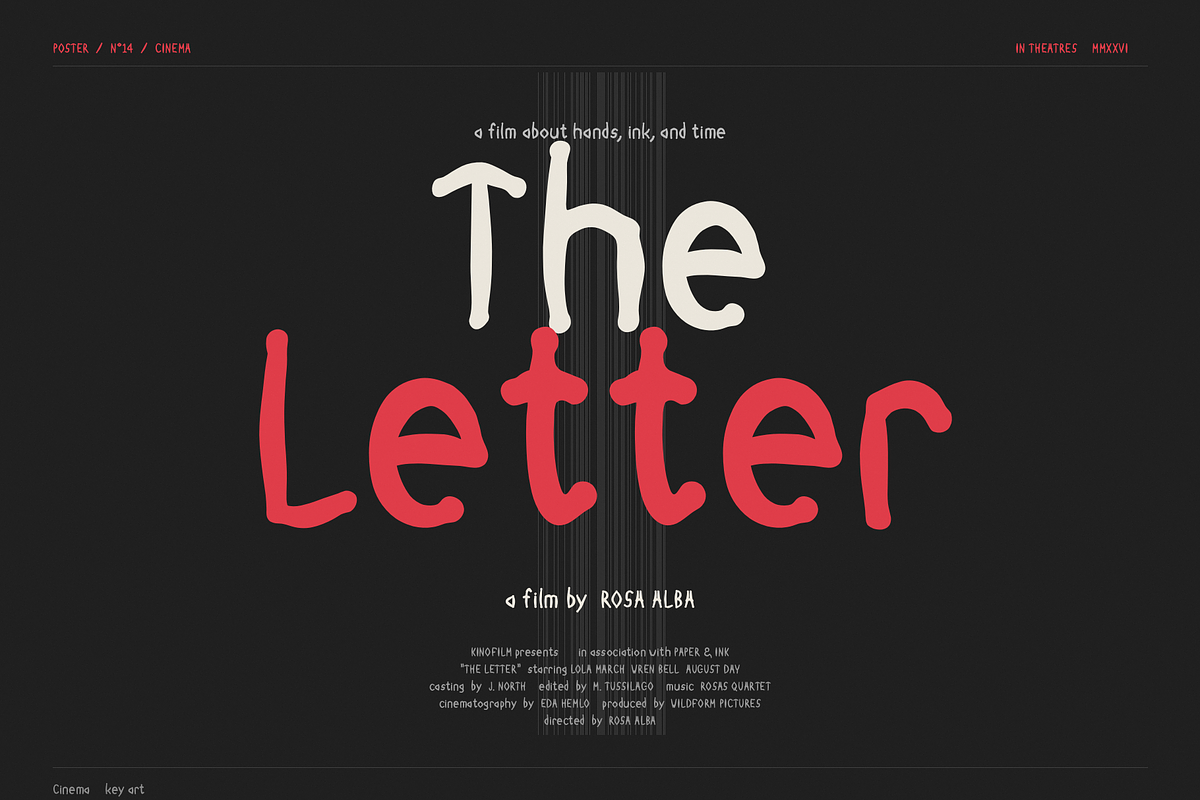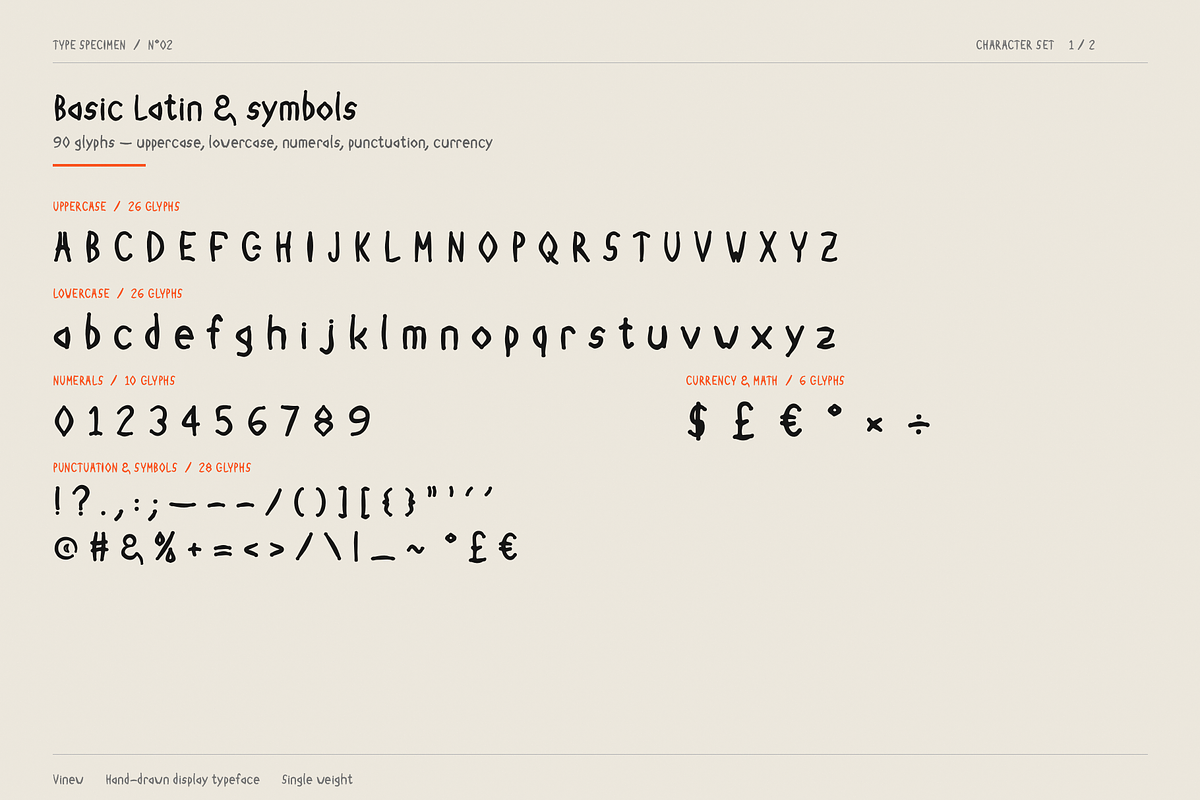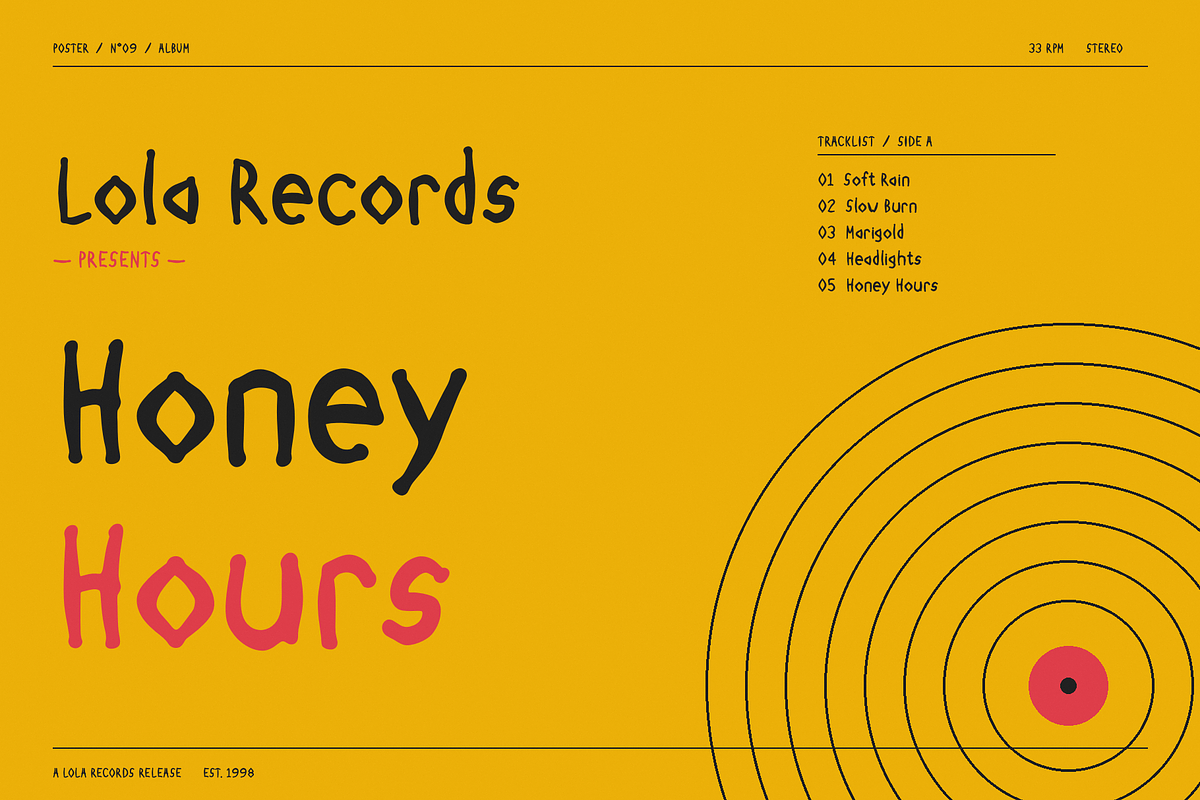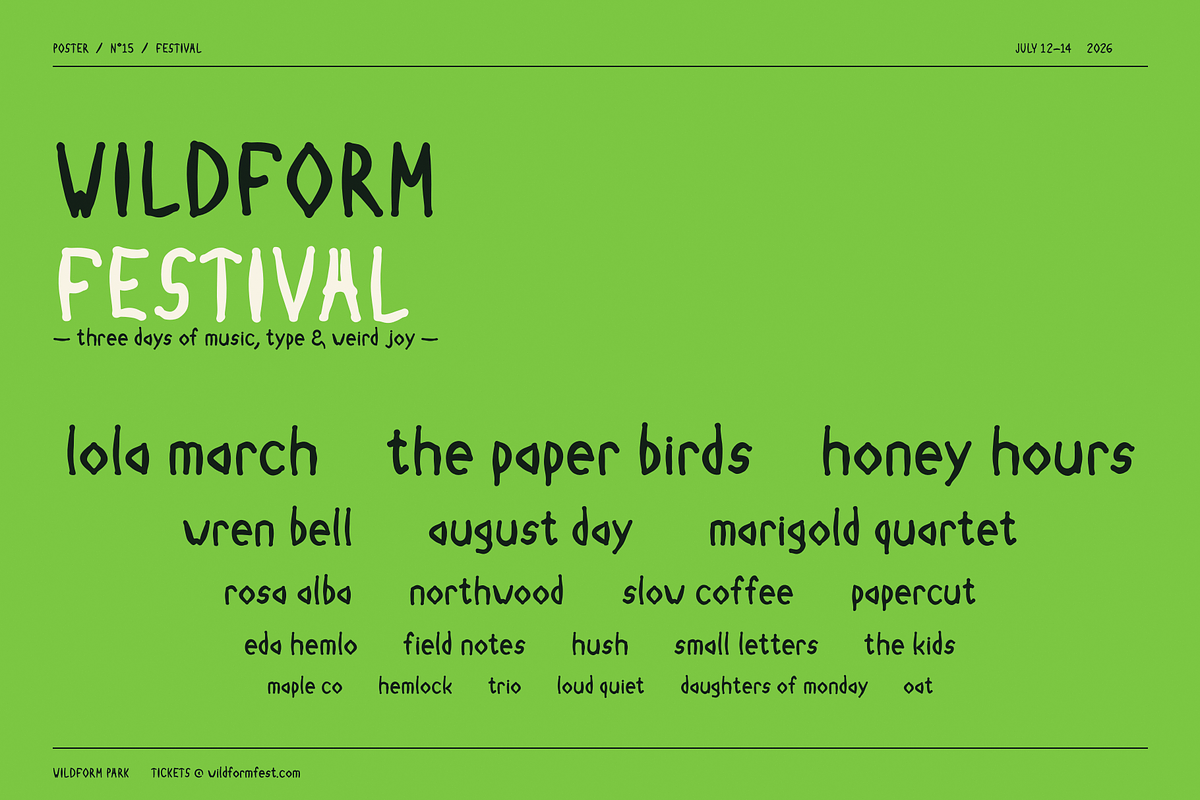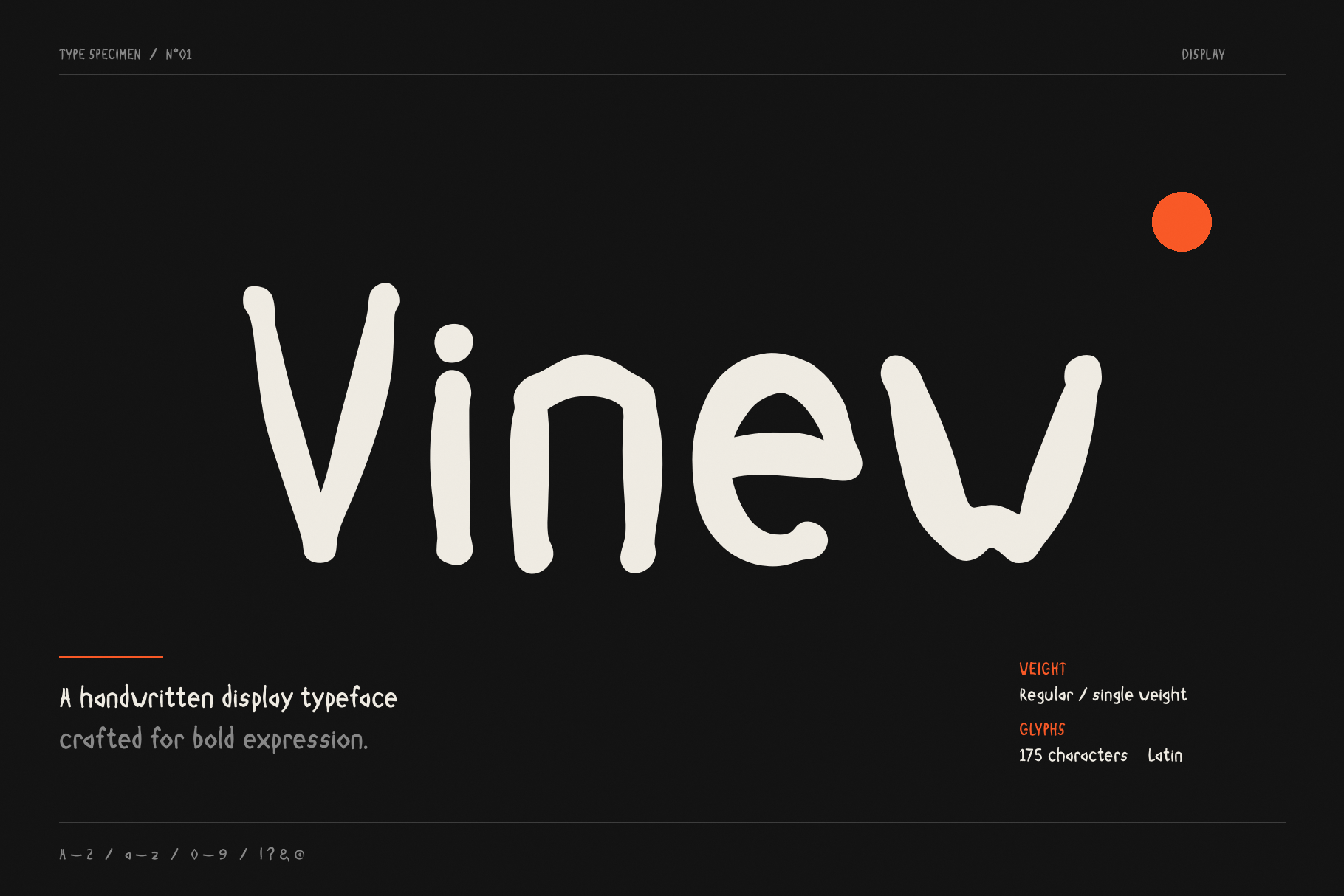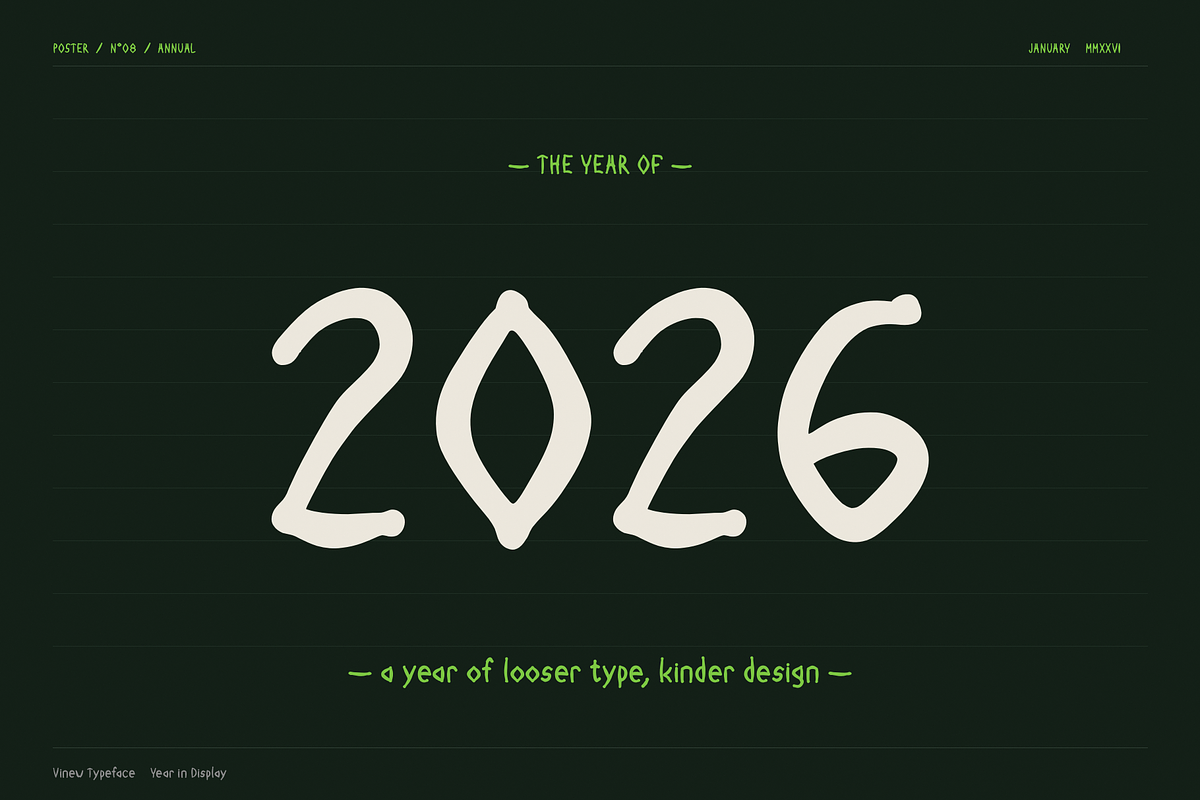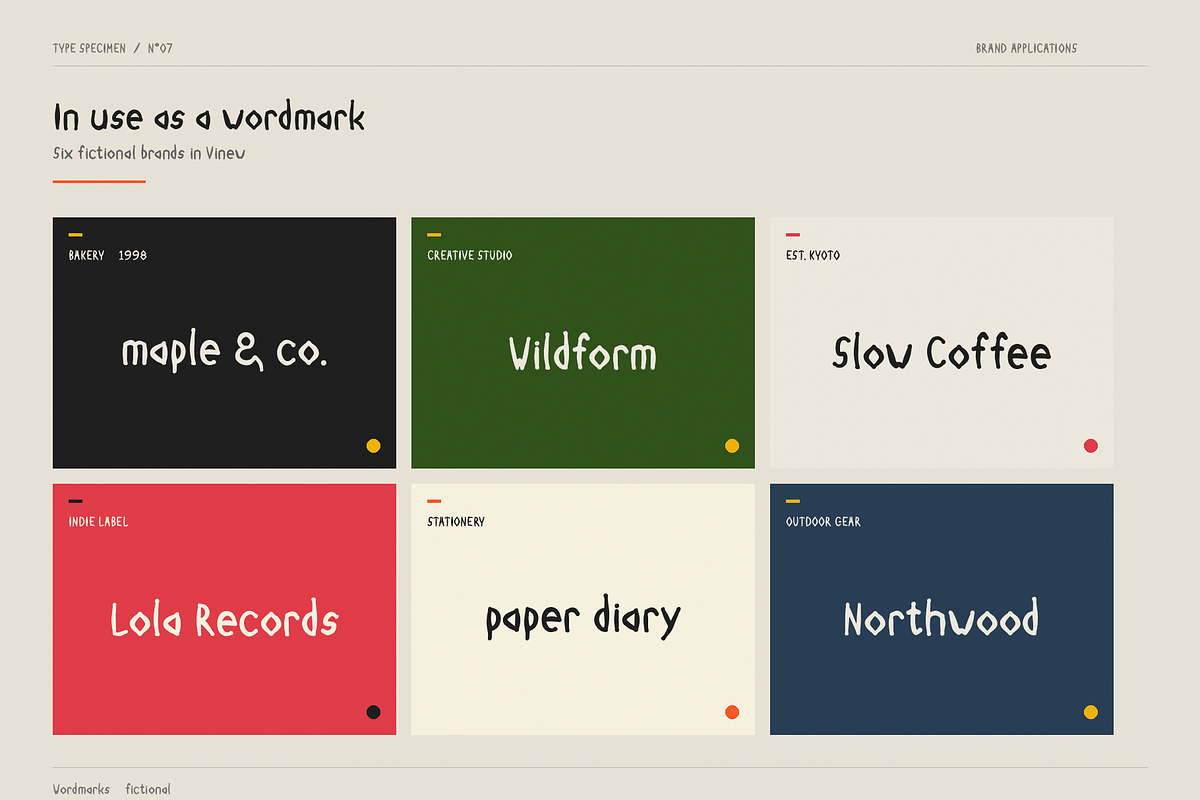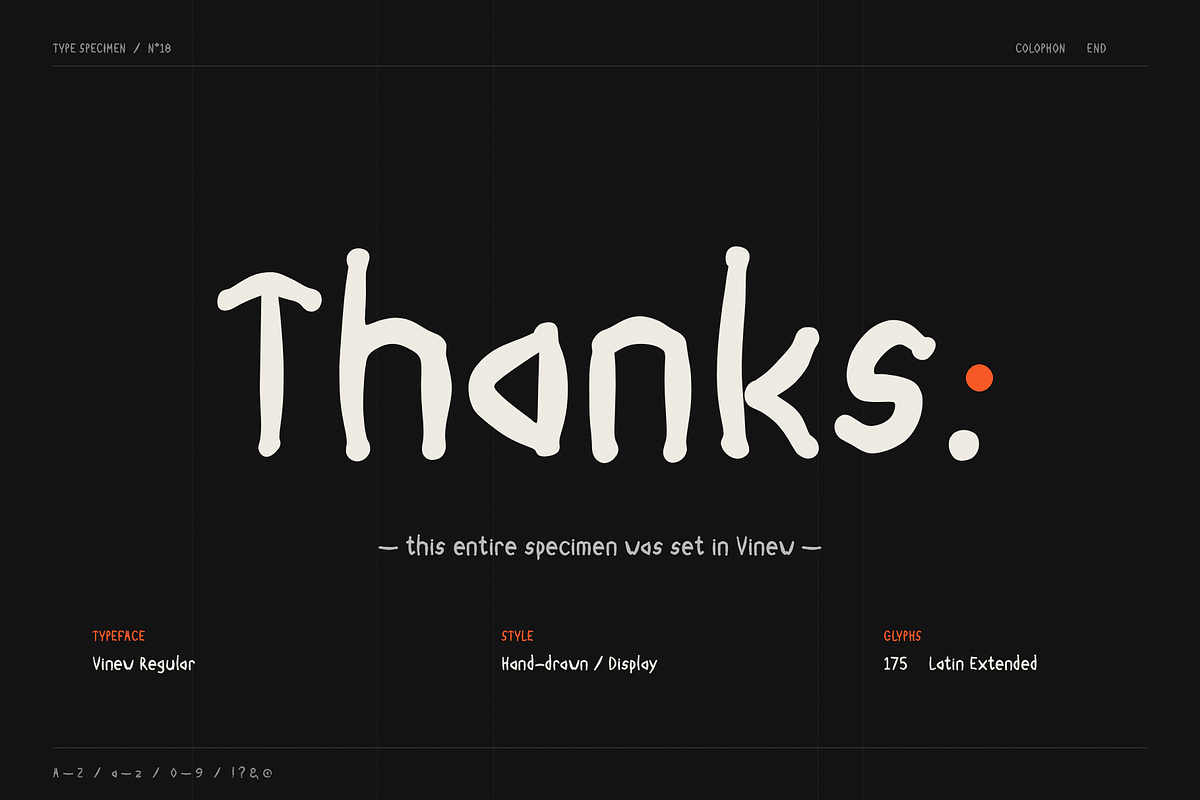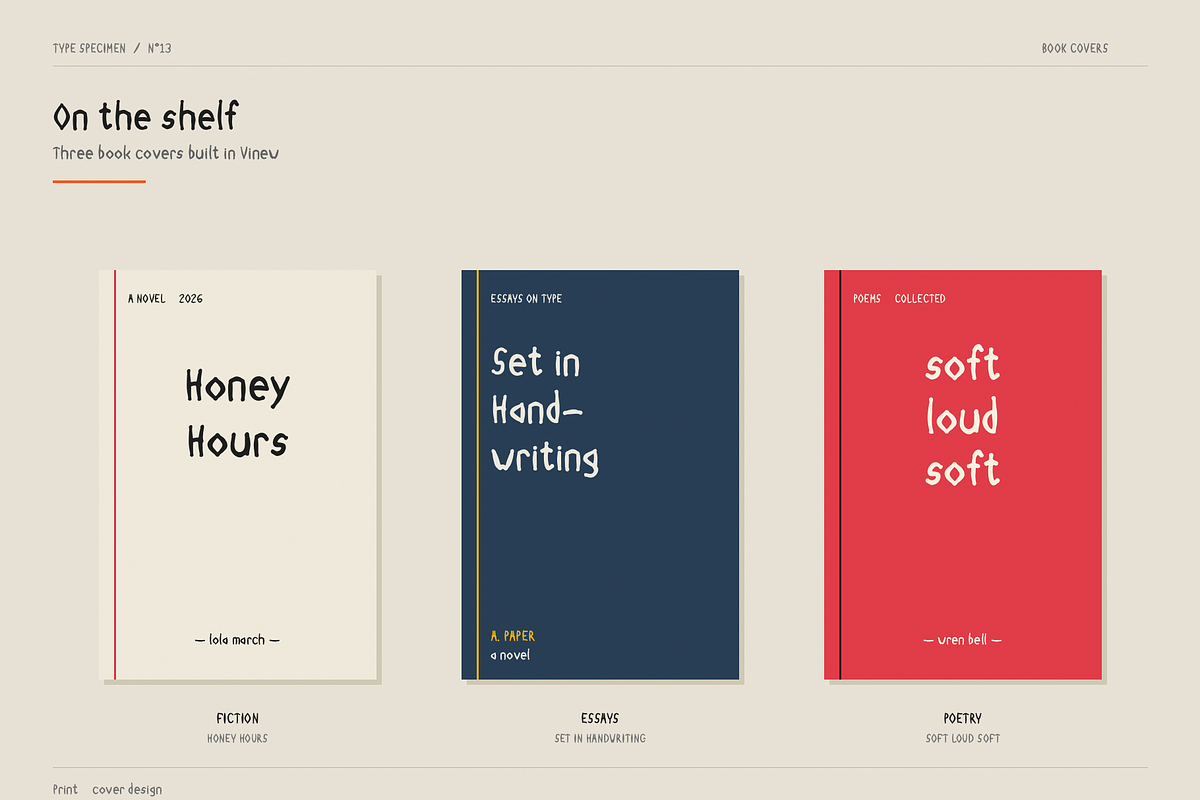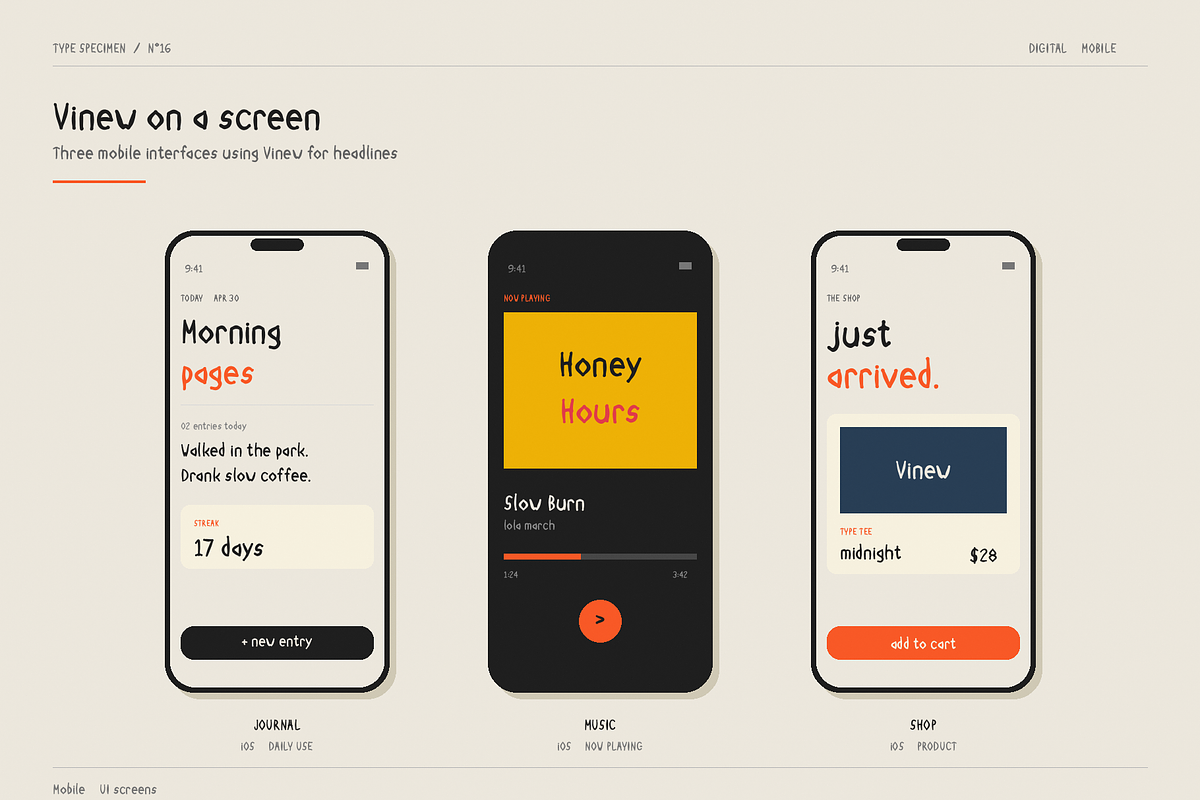
Vinew - Handwritten Display Typeface
VINEW — A Handwritten Display Typeface
Vinew is a handwritten display typeface built for bold, human expression. Drawn with the rhythm of a real hand and the softness of a felt-tip marker, every letter carries a little imperfection — the kind that makes design feel alive. It's the font for stories that deserve to feel written, not typed.
Vinew sits in that sweet spot between casual and considered. It's friendly without being childish, expressive without trying too hard, and personal without losing polish. Whether you're branding a slow coffee shop, designing an indie album cover, or adding warmth to a mobile app, Vinew gives your work a heartbeat.
Editorial headlines, indie album artwork, café and restaurant menus, mobile app UI, festival and event posters, slow-living and lifestyle brands, social media graphics, apparel and merch, book covers, film titles, stationery, packaging, and any project that needs a soulful, hand-made feel.
— Full Basic Latin character set (A–Z, a–z) — Numerals 0–9 with character — Punctuation, symbols & currency — Carefully crafted single weight — Soft contrast strokes with organic imperfections — Optimized for both print and screen — Latin language support
— Indie brand & identity designers — Editorial and magazine creatives — App and web designers building human interfaces — Small business owners with a story to tell — Illustrators, content creators, and stationery studios — Anyone tired of cold, sterile typography